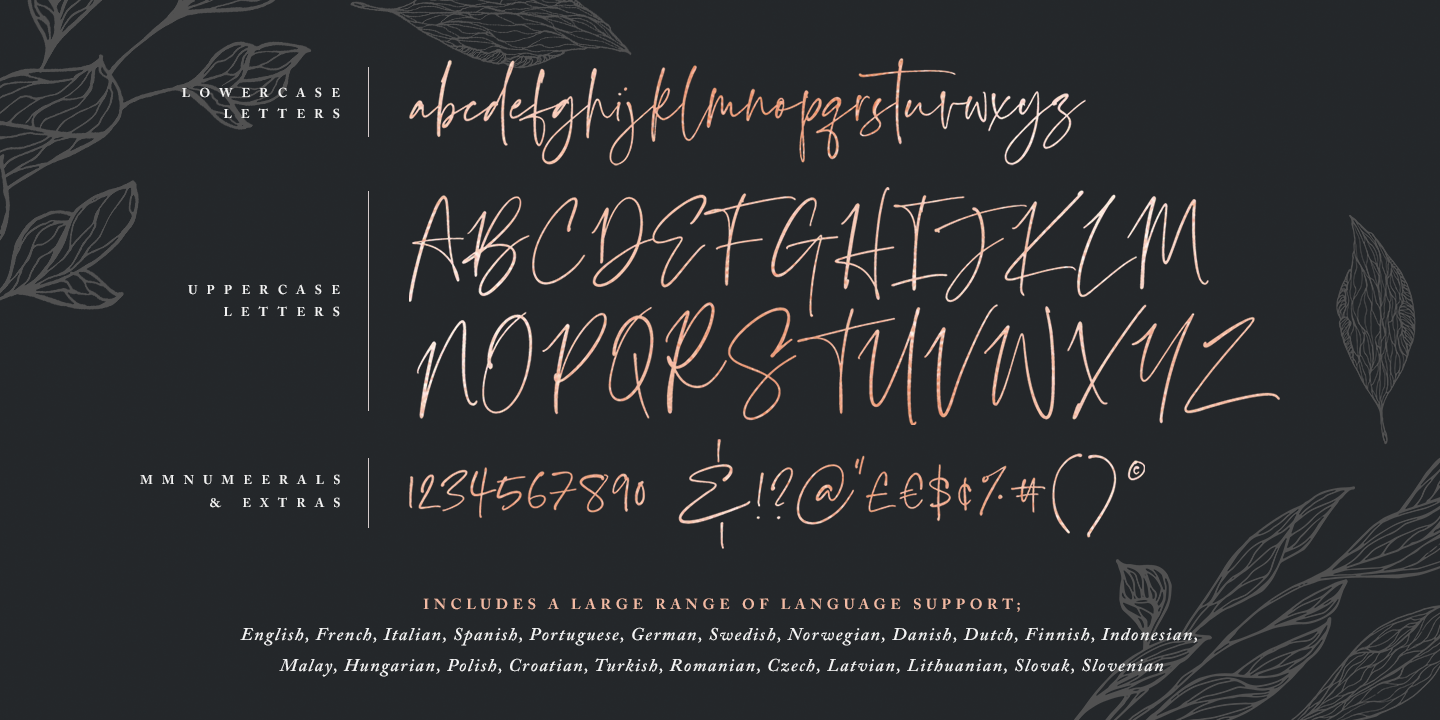
Bird & Thorn Font is a uniquely artistic and decorative typeface that evokes a sense of nature, whimsy, and intricate detail. It's perfectly suited for projects that aim for a handcrafted, illustrative, or even slightly fantastical aesthetic, such as folk art-inspired designs, enchanting book covers, bespoke invitations for garden parties, and distinctive branding for artisan crafts. Imagine Bird & Thorn Font gracing the title of a nature-themed journal, adding a charming touch to a rustic wedding invitation, or providing an original visual element to a creative workshop's signage. Its unique character, often featuring integrated natural motifs, ensures your message stands out with remarkable originality and an immediate sense of imaginative allure.
What makes Bird & Thorn Font truly exciting is its ability to tell a visual story through its letterforms. This font often incorporates elements of botanical design, intricate flourishes, or subtle organic textures that give it a distinctive, almost illustrative quality. It’s an ideal choice for designers looking to break away from conventional typography and infuse their creations with a strong narrative or thematic presence. Bird & Thorn Font isn't just about conveying words; it's about adding a significant artistic component that enhances the overall mood and message of your design, making it perfect for projects that demand a unique visual voice and a touch of enchanting beauty.
Bird & Thorn Font typically functions as a display font, meaning its primary strength lies in headlines, logos, and short bursts of text where its unique characteristics can truly shine. While it may not feature an extensive range of weights or styles like a comprehensive text family, its impact comes from its singular, powerful design. It often includes a standard set of uppercase and lowercase letters, numbers, and basic punctuation, with its decorative elements being the main draw. This focused approach means that the Bird & Thorn Font Free Download is an invaluable asset for creating eye-catching and memorable design elements that instantly communicate a particular aesthetic or theme, setting your work apart.